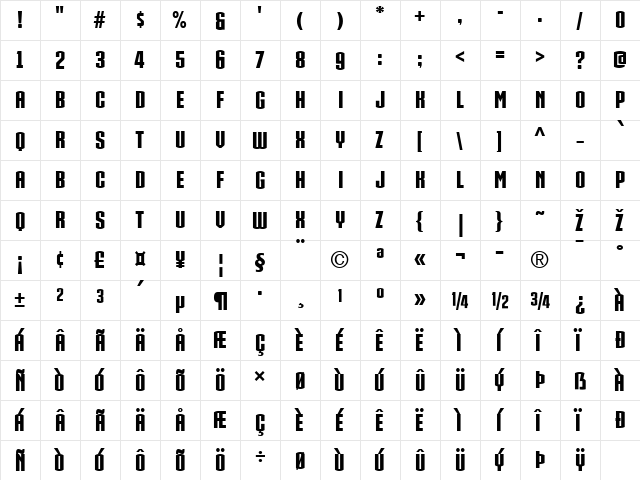
IRON MAN OF WAR 002 NCV Regular Font Preview
IRON MAN OF WAR 002 NCV Regular
IRON MAN OF WAR 002 NCV Regular Font Details
Design Context for IRON MAN OF WAR 002 NCV Typeface
IRON MAN OF WAR 002 NCV is a composed and adaptable typeface that performs quietly and consistently across a wide range of design contexts.